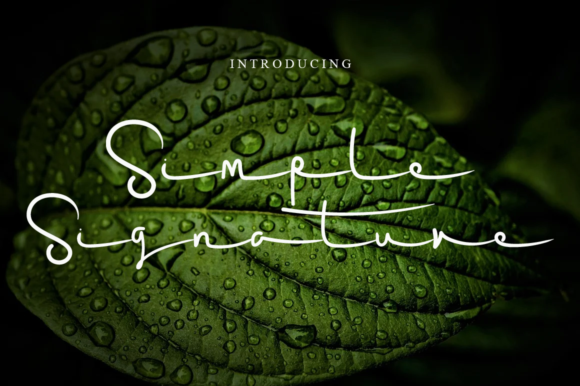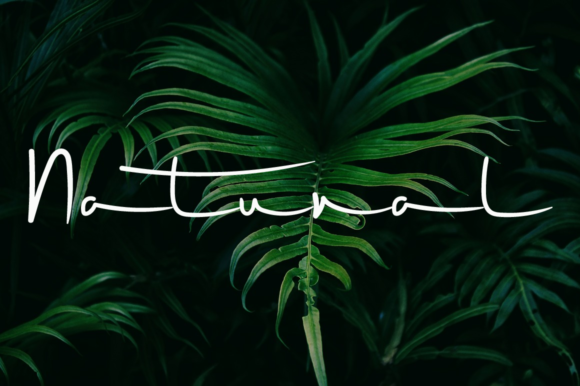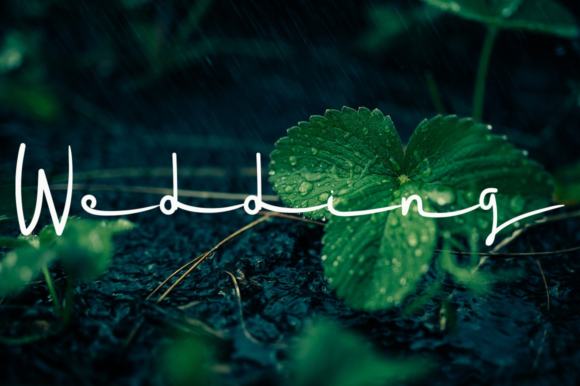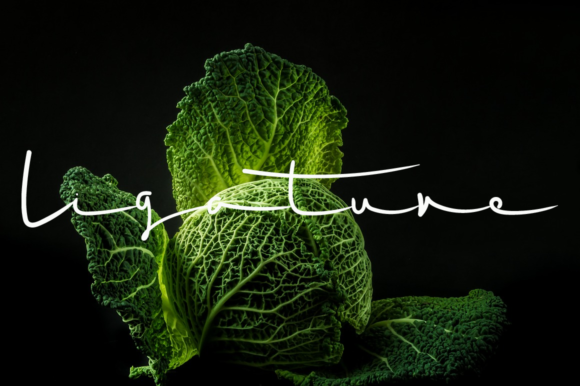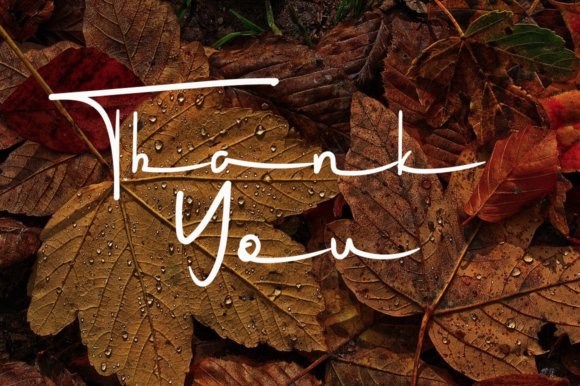
Simple Signature Font
About Simple Signature Font
Simple Signature is a relaxed and cursive handwritten font. It is defined by smooth curves and is perfect for fashion branding or editorial designs. Add it confidently to your projects, and you will love the results.